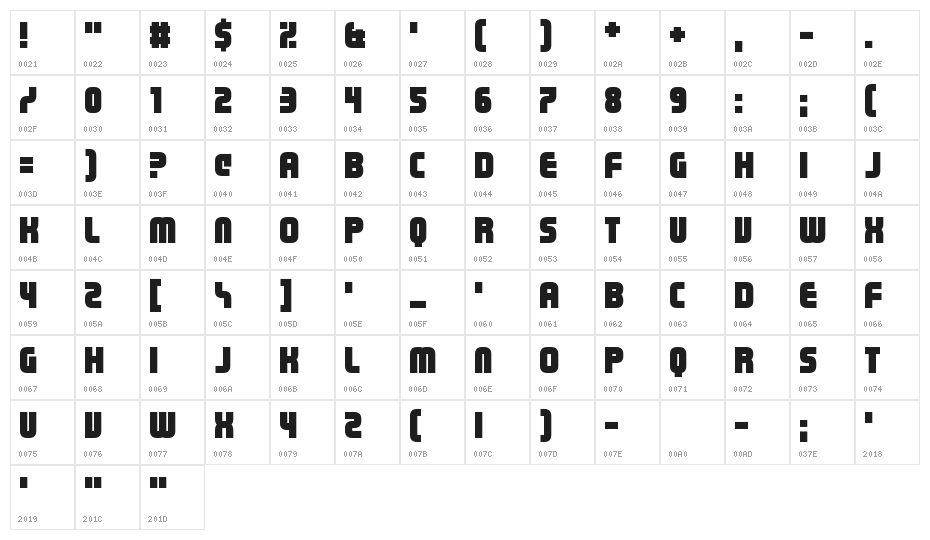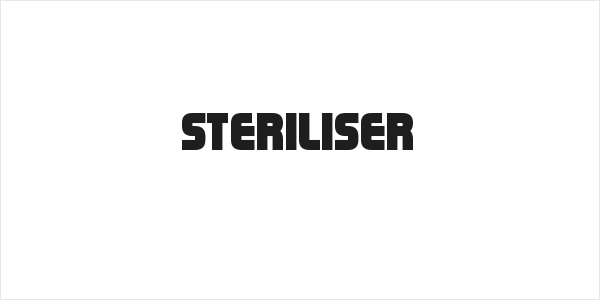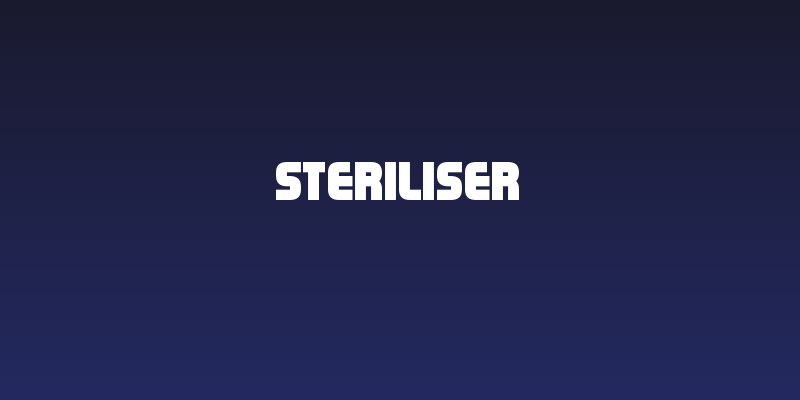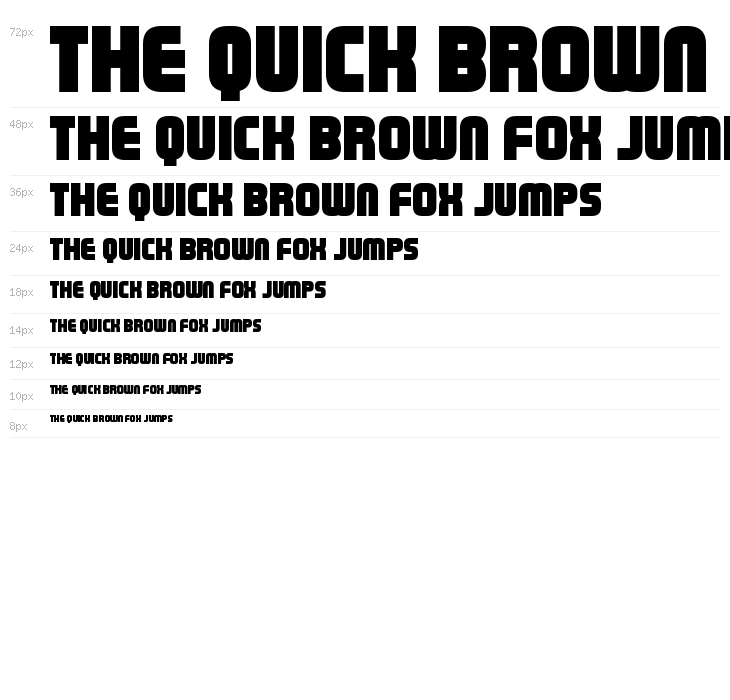
Steriliser Font
Steriliser Description
This font features a bold, geometric design with thick, uniform strokes that create a strong visual impact. The characters are blocky and robust, with rounded corners that soften the overall appearance. The uppercase and lowercase letters maintain a consistent height, contributing to a cohesive and structured look. The numerals and special characters follow the same design principles, ensuring uniformity across all glyphs. This font's boldness and clarity make it highly legible, even at smaller sizes, while its unique style adds a modern and dynamic touch to any design.